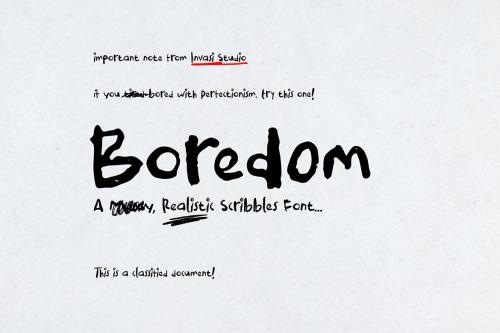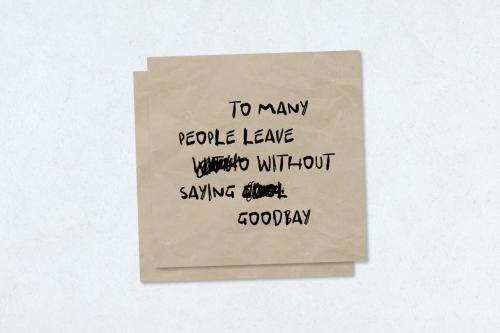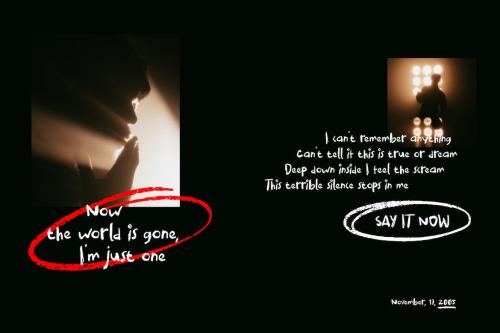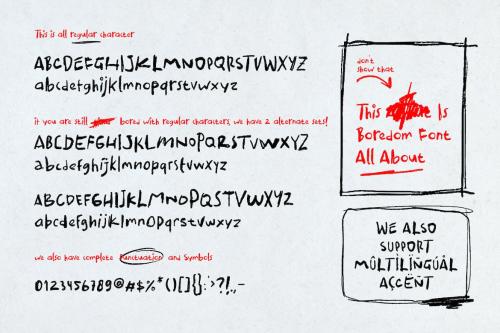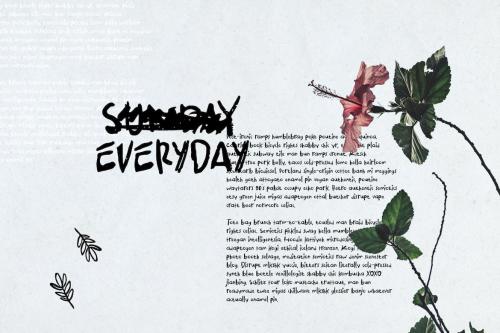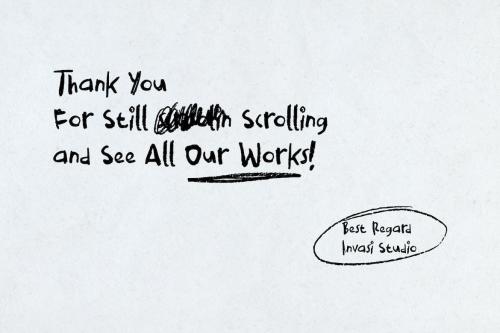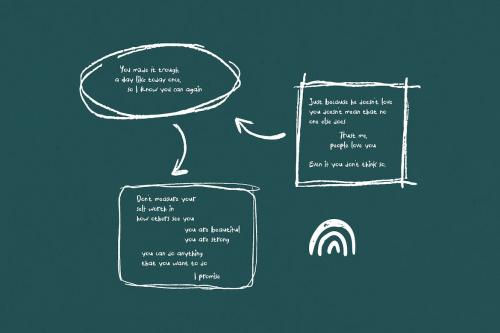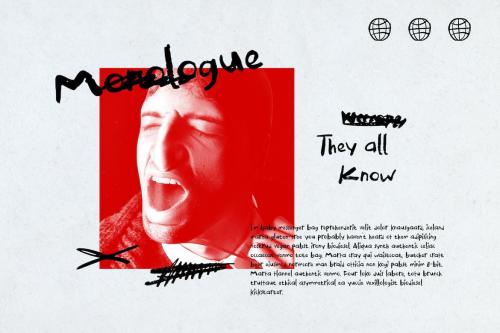
无聊手写字体
Boredom Handwritten Font
You want to add more raw for your design. Introduction our new Handwritten Font. A Boredom Font with realistic scribbles pen styles. This set can make your design more realistic. Includes 2 set alternate variations for each A-Z letter (both uppercase and lowercase). So you can create a combination of whatever you want!
You want to add more raw for your design. Introduction our new Handwritten Font. A Boredom Font with realistic scribbles pen styles. This set can make your design more realistic.
Includes 2 set alternate variations for each A-Z letter (both uppercase and lowercase). So you can create a combination of whatever you want!
* Multi-language
* Alternates
* Punctuation
* Ligature